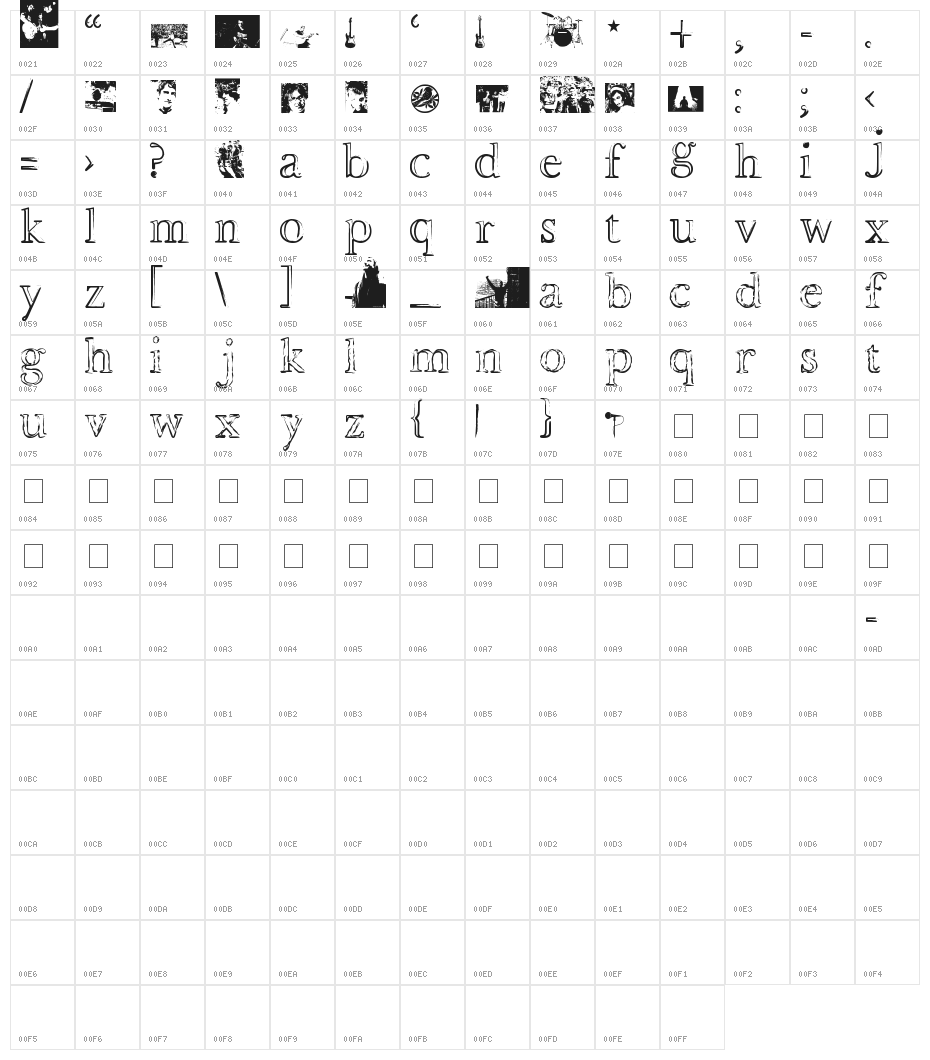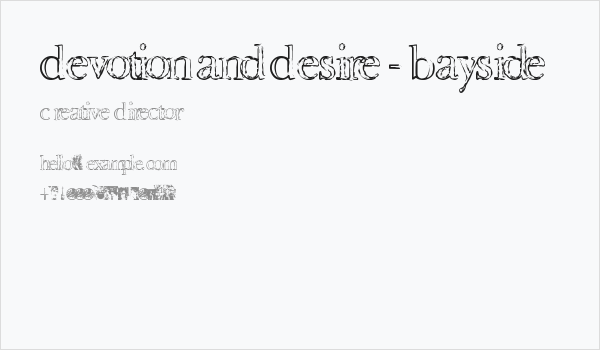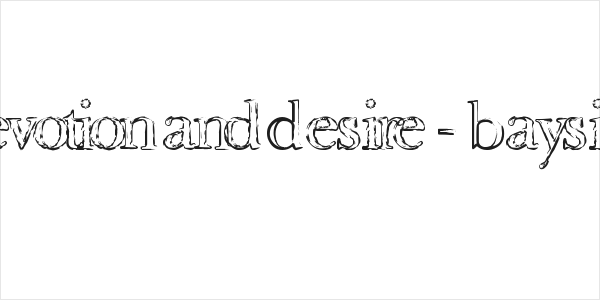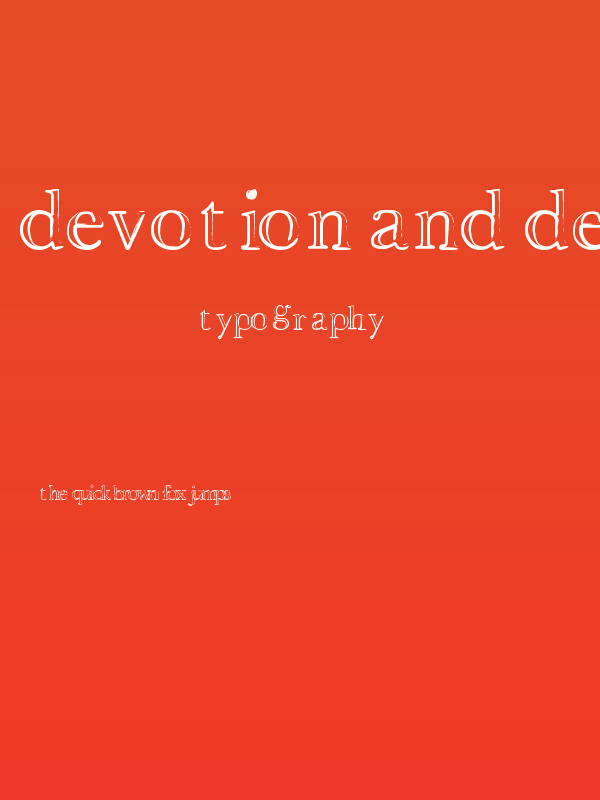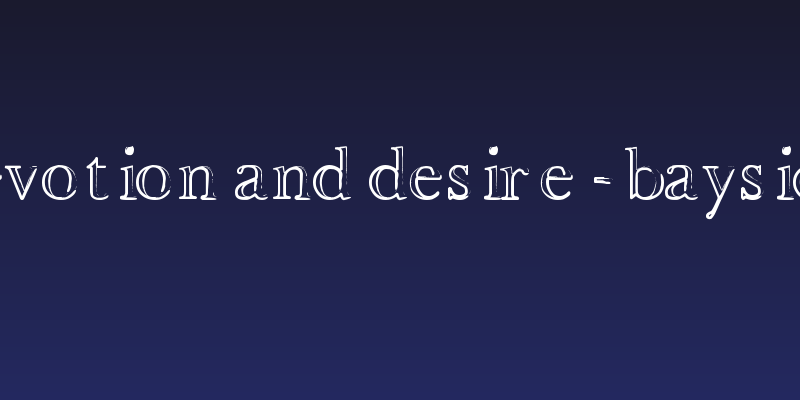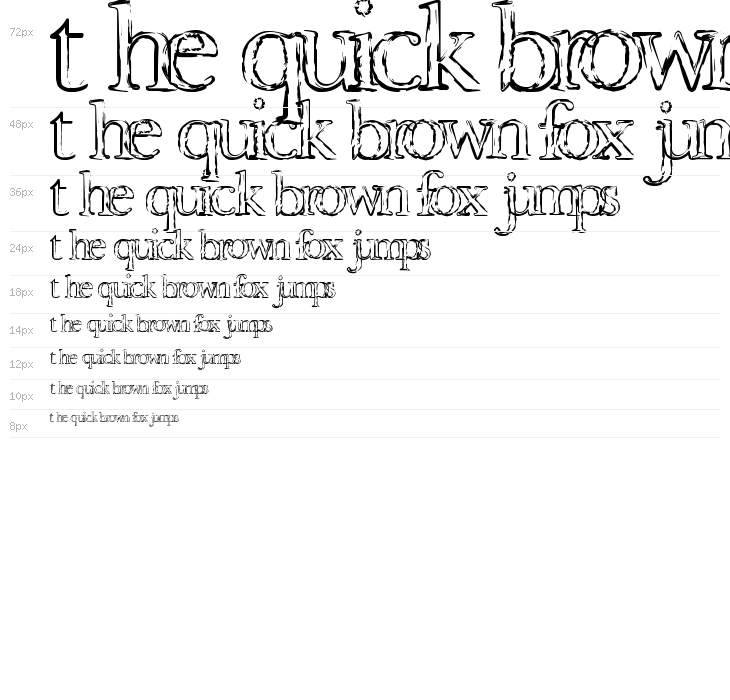
Devotion and Desire - Bayside Font
Devotion and Desire - Bayside Description
This font features a distressed and grunge style, with a textured appearance that gives it a worn and weathered look. The characters are serifed, with uneven edges and a hand-drawn quality that adds to its rugged charm. The uppercase and lowercase letters maintain a consistent style, with some variation in stroke thickness that enhances its organic feel. The font's unique aesthetic makes it stand out, offering a bold statement with its artistic and unconventional design.
| Proposed Projects | Ideal for album covers, posters, and designs that require a bold, artistic statement. |